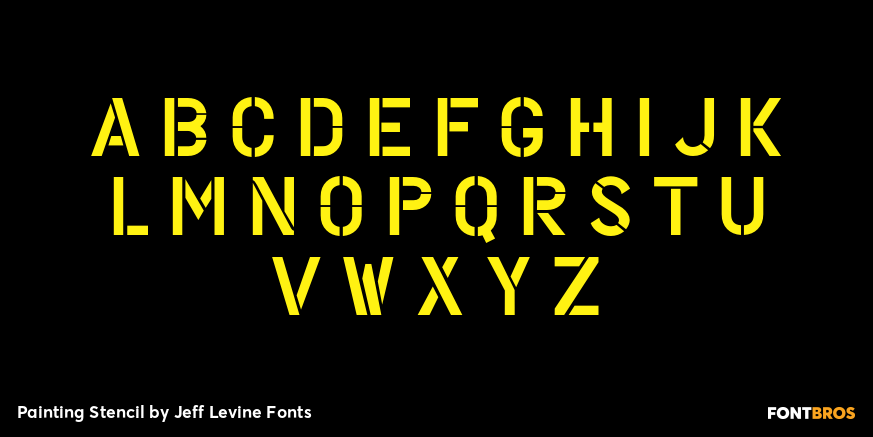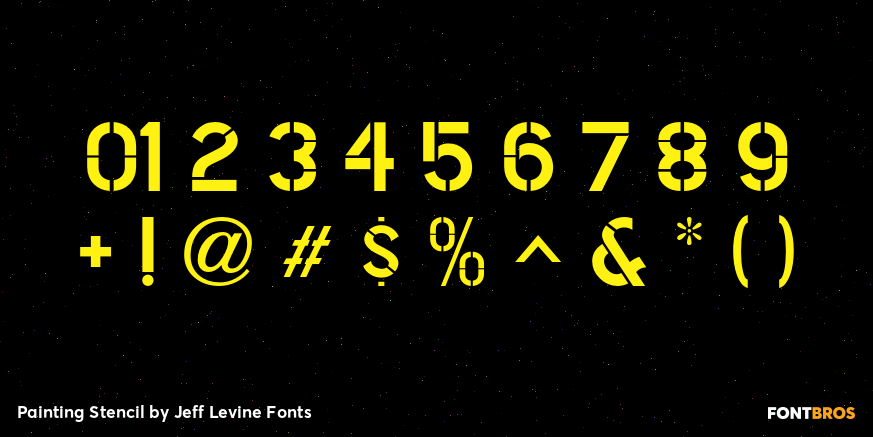
Painting Stencil
Painting Stencil JNL was modeled in part from a vintage set of 8 inch Gothic stencils. Stencils of this size were generally referred to as painting stencils because each letter could be painted individually in marking signs, streets or buildings, where the classic 'lettering guide' type of stencil were used for smaller projects and had alignment holes for accurate letter spacing as well as multiples letters per page.